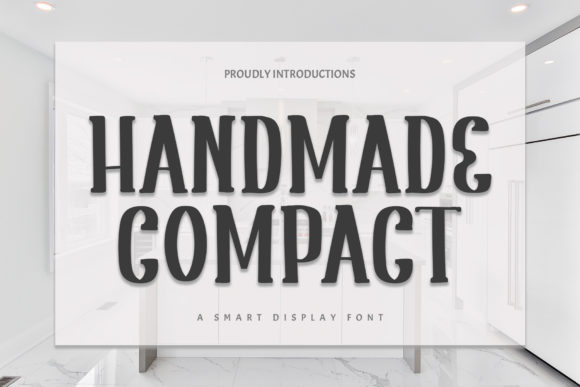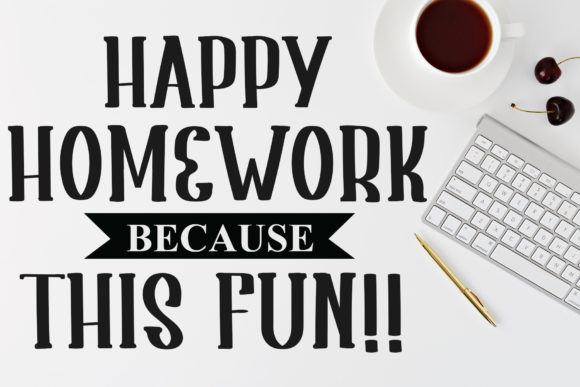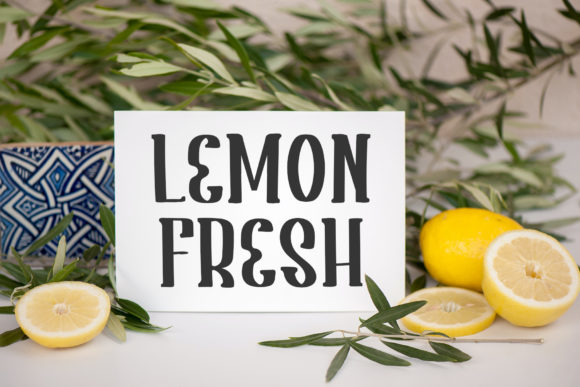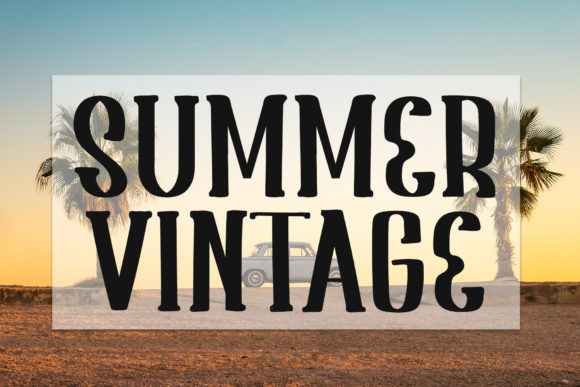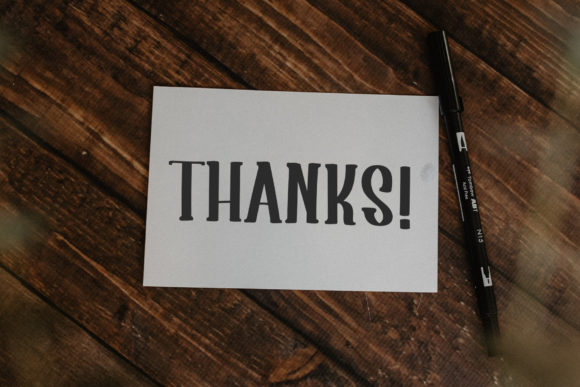
Handmade Compact: A Beautiful and Neat Slab Serif Font
Handmade Compact is a beautiful and neat slab serif font, perfect for making your designs stand out from the crowd. Its characters are ideal for wall displays, wedding invitations, social media posts, logos, advertisements, product packaging, and more.
Key Features of Handmade Compact
- Beautiful Design: Offers an elegant and clean look suitable for a variety of applications.
- Slab Serif Structure: Features distinctive serifs that add character and style.
- Versatile Application: Ideal for modern typography projects requiring a standout appearance.
Ideal Uses for Handmade Compact
Handmade Compact’s unique characteristics make it particularly well-suited for:
- Logo design and branding
- Wedding invitations and stationery
- Social media graphics and content
- Product packaging and labels
- Typography projects needing a modern touch
- Wall displays and advertisements
- Photography watermarks and logos
When incorporating Handmade Compact into your designs, consider these tips:
- Use for headlines or short blocks of text to showcase its neat style.
- Experiment with different sizes to highlight the font’s distinctive features.
- Consider pairing with simpler sans-serif fonts for body text to create contrast.
- Utilize its versatility across various creative projects to enhance visual appeal.
Handmade Compact is an excellent choice for designers looking to add a beautiful and neat slab serif font to their typographic toolkit. Its ability to enhance various design projects makes it stand out in the world of typography. Whether you’re working on wedding invitations, creating layouts for social media, or developing content that requires a touch of elegance, Handmade Compact offers the perfect blend of style and functionality.
Furthermore, Handmade Compact’s unique design allows it to shine in various contexts. From vintage-inspired designs with a modern twist to more contemporary layouts that need a touch of uniqueness, this font can elevate your projects. Its striking yet functional style works particularly well in designs that require a thoughtful and engaging mood.
In conclusion, Handmade Compact is a font that truly captures the essence of creativity and impact in typography. Its ability to work well in both minimalist projects and more elaborate layouts showcases its flexibility. For those looking to add a touch of unique charm to their work, Handmade Compact can even enhance themed creations with its distinctive style. It’s the perfect choice for designers seeking to make a strong, stylish impact across a wide range of creative projects.